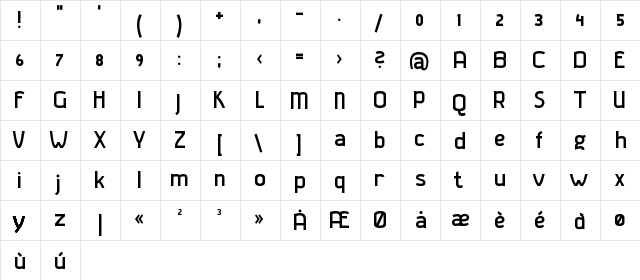
Gladatur Rum Regular Font Preview
Gladatur Rum Regular
Design Context for Gladatur Rum Typeface
Gladatur Rum offers clean, dependable letterforms without strong stylistic allegiance, making it a practical choice for designers who need flexibility.
Pro Tip: Use Gladatur Rum in both headline and body roles to test its range before committing to a single application.